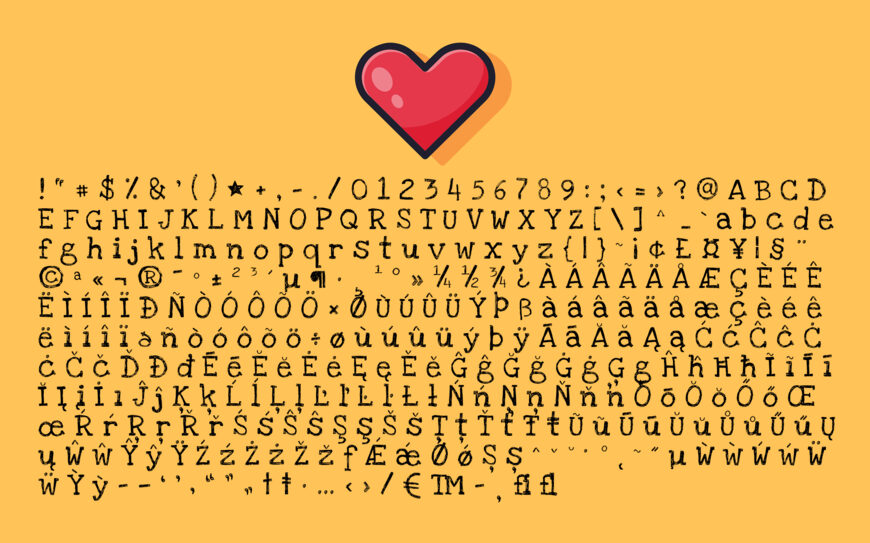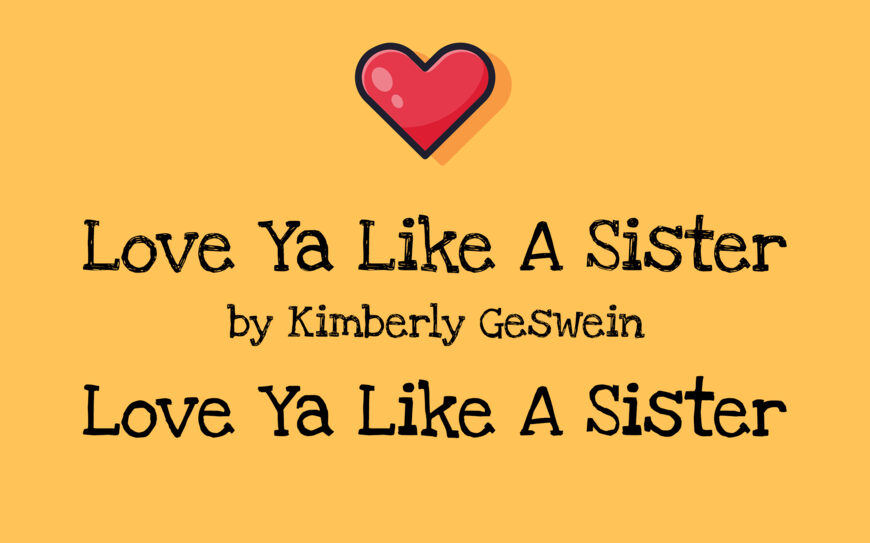
KG Love Ya Like A Sister is a nostalgic font family created by Kimberly Geswein. This sketchy serif has a distinct hand made look and a great playful attitude. The solid verison still has lots of character but is a little bit more legible in small spaces.